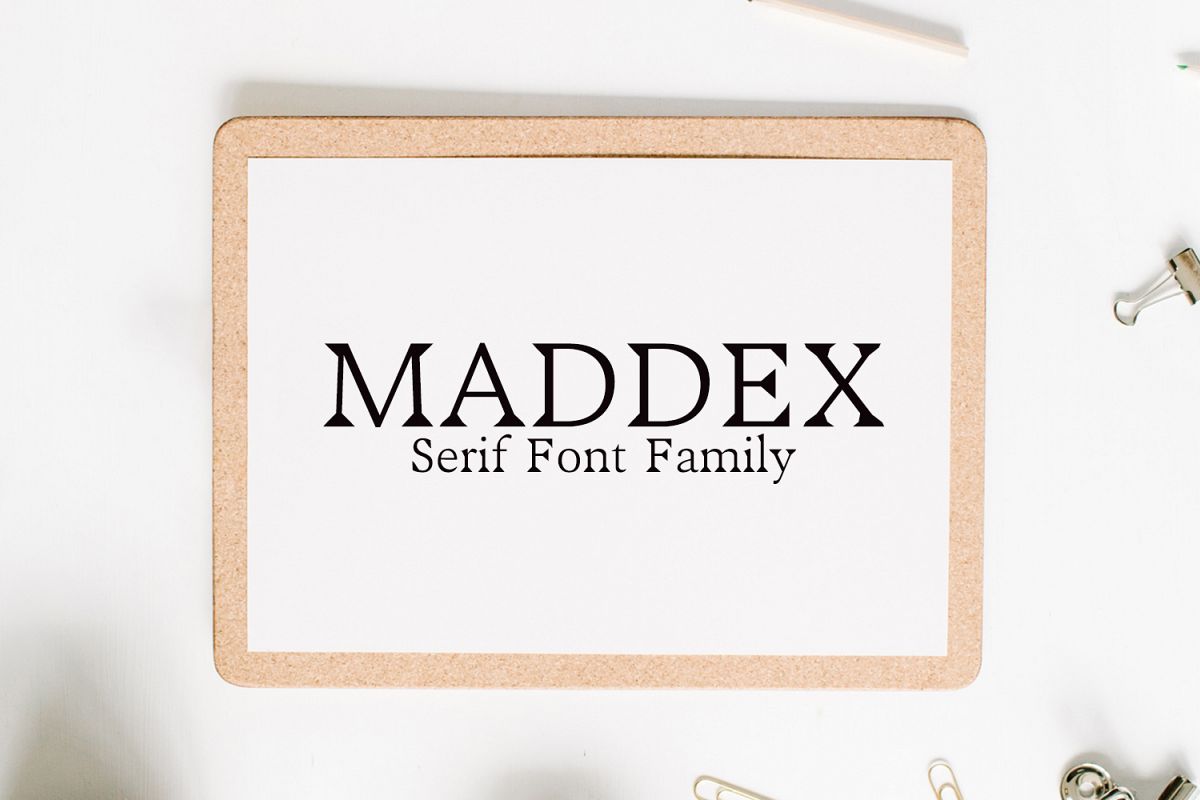
Maddex Serif Premium Font Family
Maddex Serif Premium Font Family is a decorative serif font family, which contains 3 weights and It features unique and modern serif look and feel. Perfect for gorgeous logos, titles, web layouts and branding. It looks gorgeous in all caps with a wide-set spacing if you want to try a classy look, or beautiful on its own in capital and lowercase letters for something completely timeless.Included